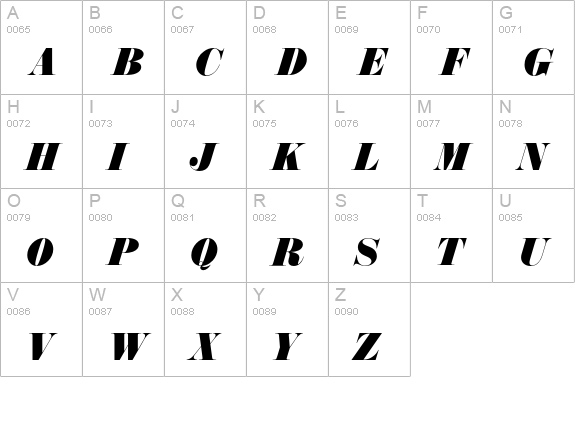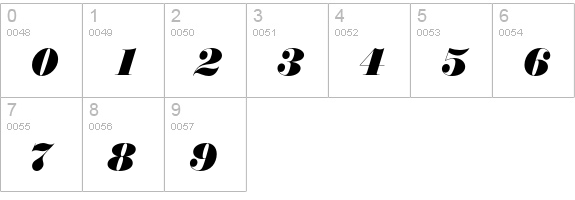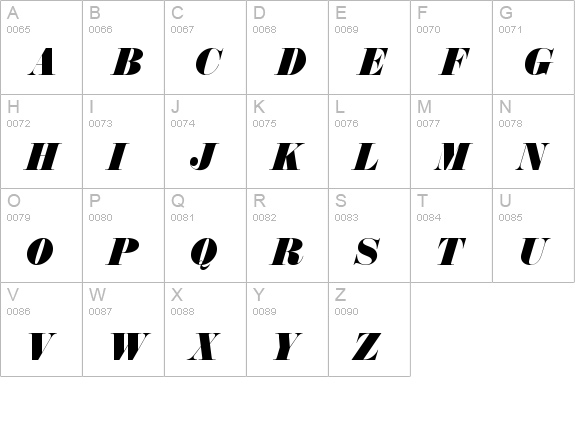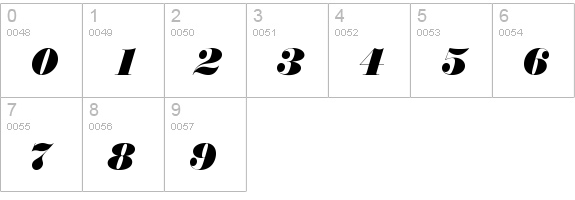
AnnlieEF-ExtraBoldItalic Font Details
AnnlieEF-ExtraBoldItalic font is a stunning and eye-catching typeface that exudes elegance and sophistication. Its bold and italic design makes it perfect for adding emphasis and style to your projects. The sleek curves and sharp angles of this font create a sense of modernity and luxury. What sets AnnlieEF-ExtraBoldItalic font apart is its versatility - it can be used for a wide range of design projects, from branding and advertising to invitations and packaging. The boldness of this font commands attention, while the italicized style adds a touch of flair and creativity. Best of all, AnnlieEF-ExtraBoldItalic font is free to download at FontsMarket.com. This means you can elevate your designs without breaking the bank. Whether you're a seasoned designer or just starting out, this font is sure to make a statement and leave a lasting impression. Download AnnlieEF-ExtraBoldItalic font today and take your projects to the next level!